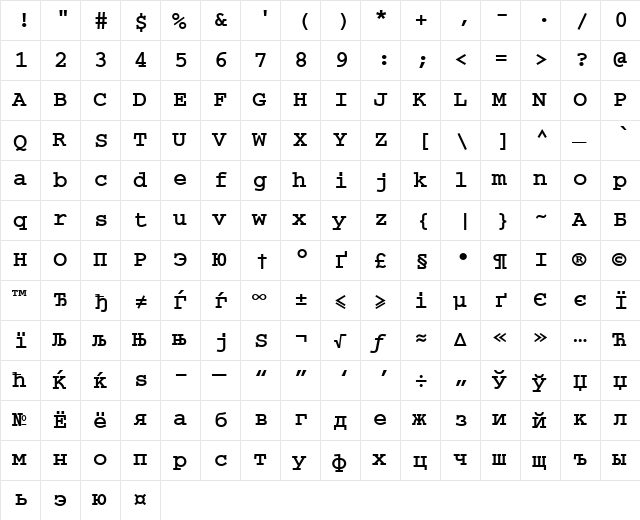
CourierMACCTT Bold
Design Context for CourierMACCTT Typeface
CourierMACCTT brings the precise, column-aligned rhythm of monospaced typography to designs that value technical clarity and systematic order. Its bold stroke weight gives it real presence on the page.
Pro Tip: Pair CourierMACCTT with a proportional sans for UI contexts where code-style labels and regular body copy need to coexist.